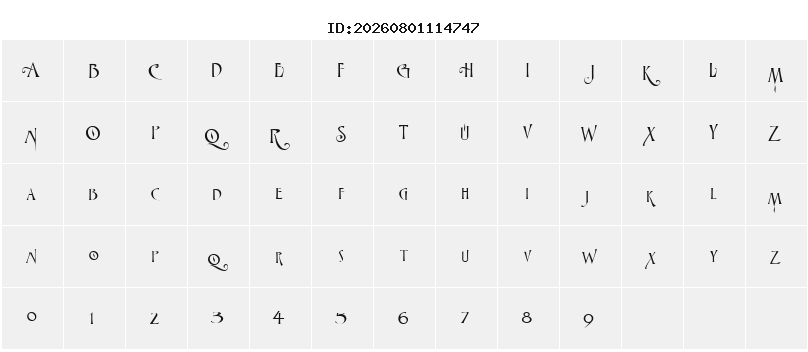
LHF Denise Preview
• Font Name: LHF Denise
About LHF Denise.ttf
LHF Denise.ttf is a modern, elegant sans-serif font designed for ultimate readability and visual harmony. Perfect for branding, headlines, web design, and print materials.